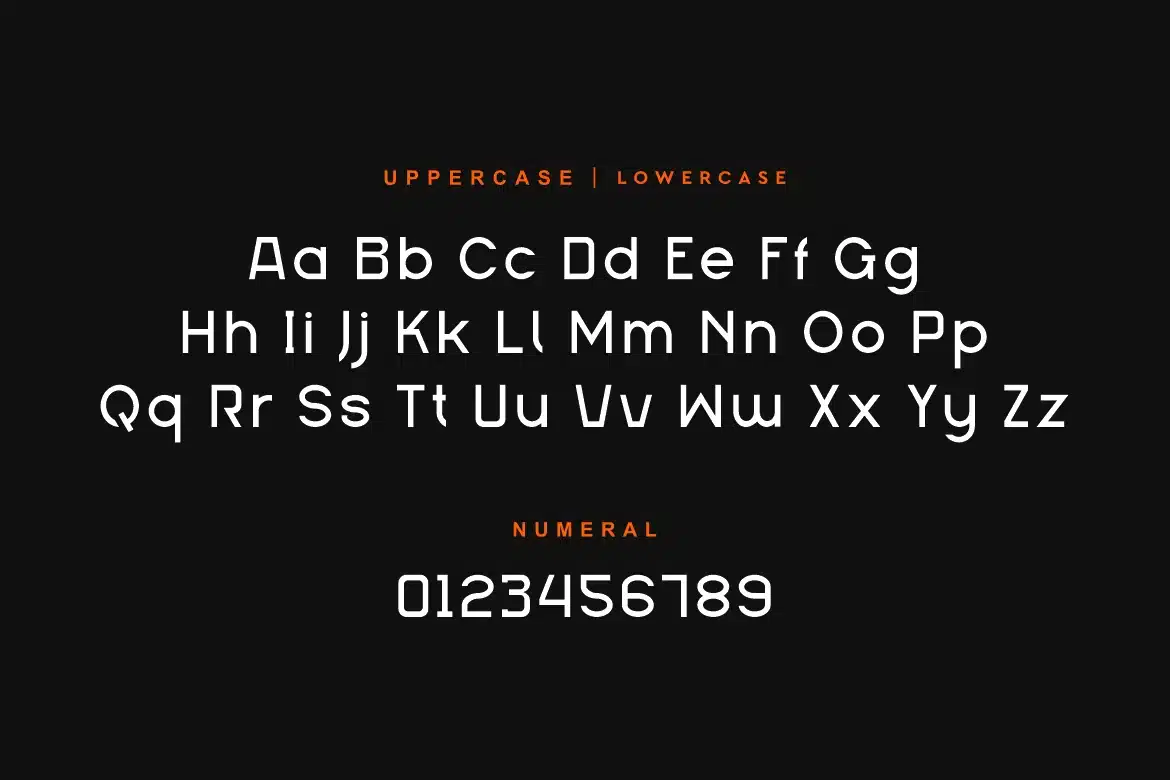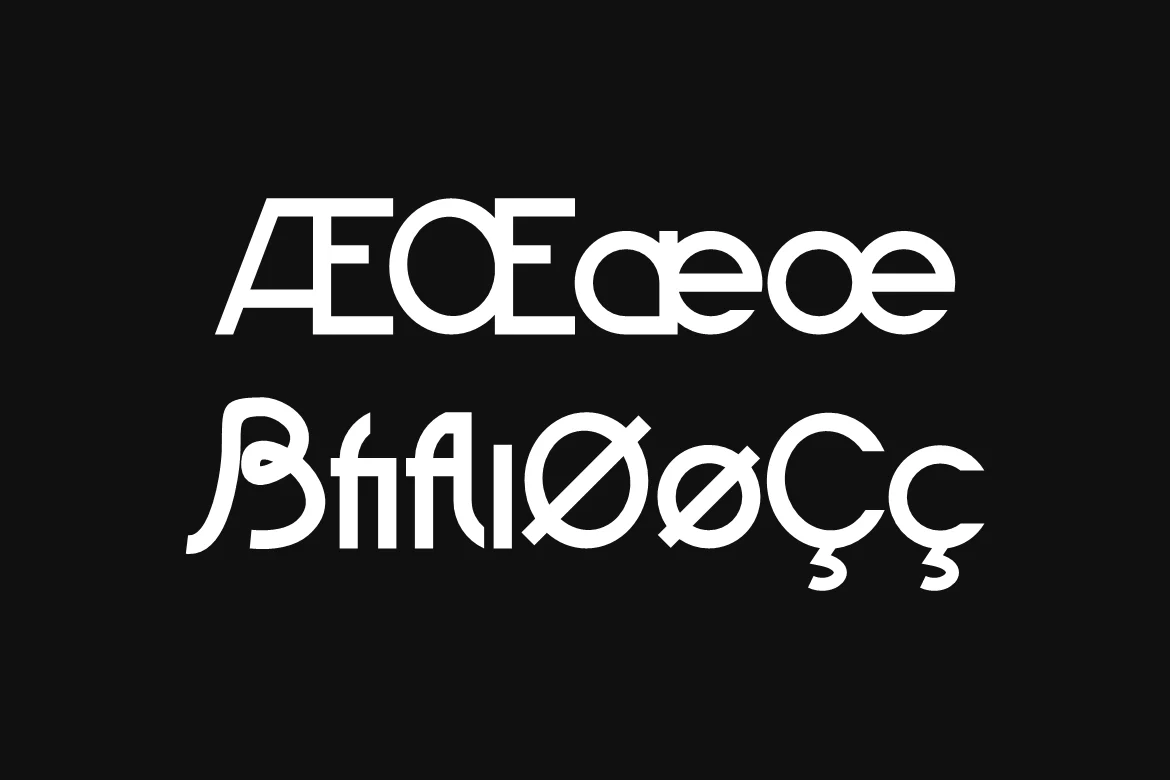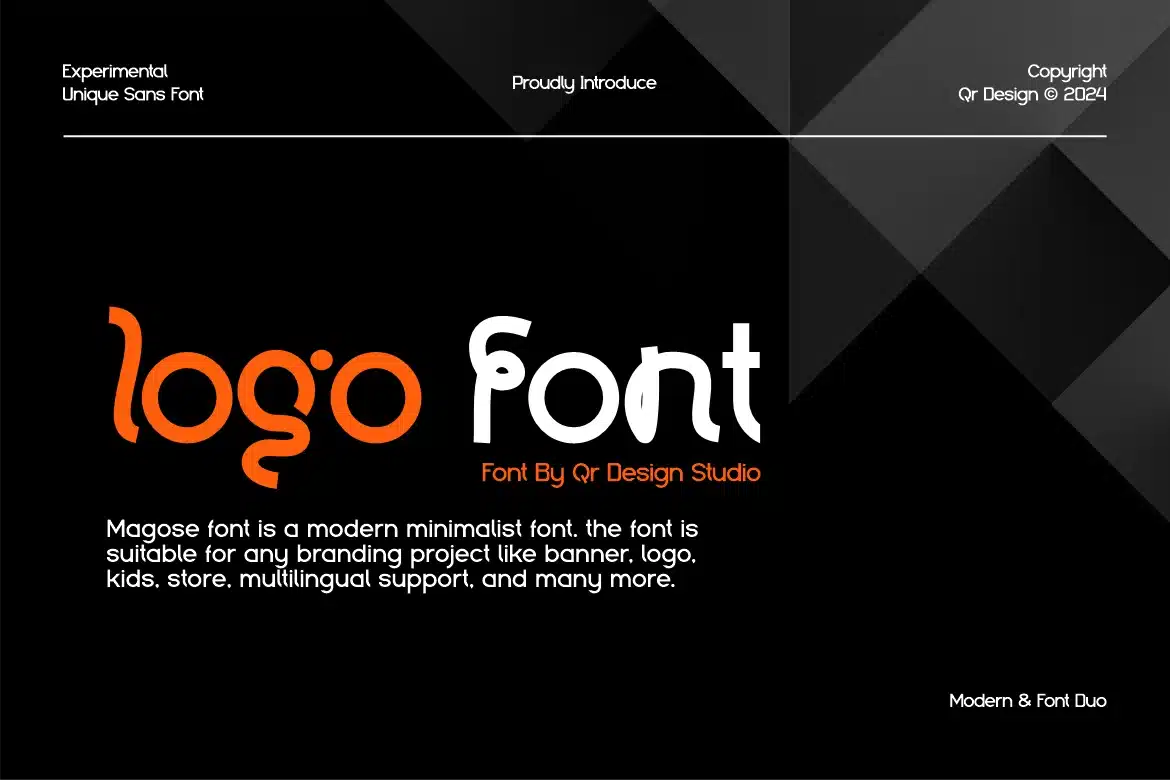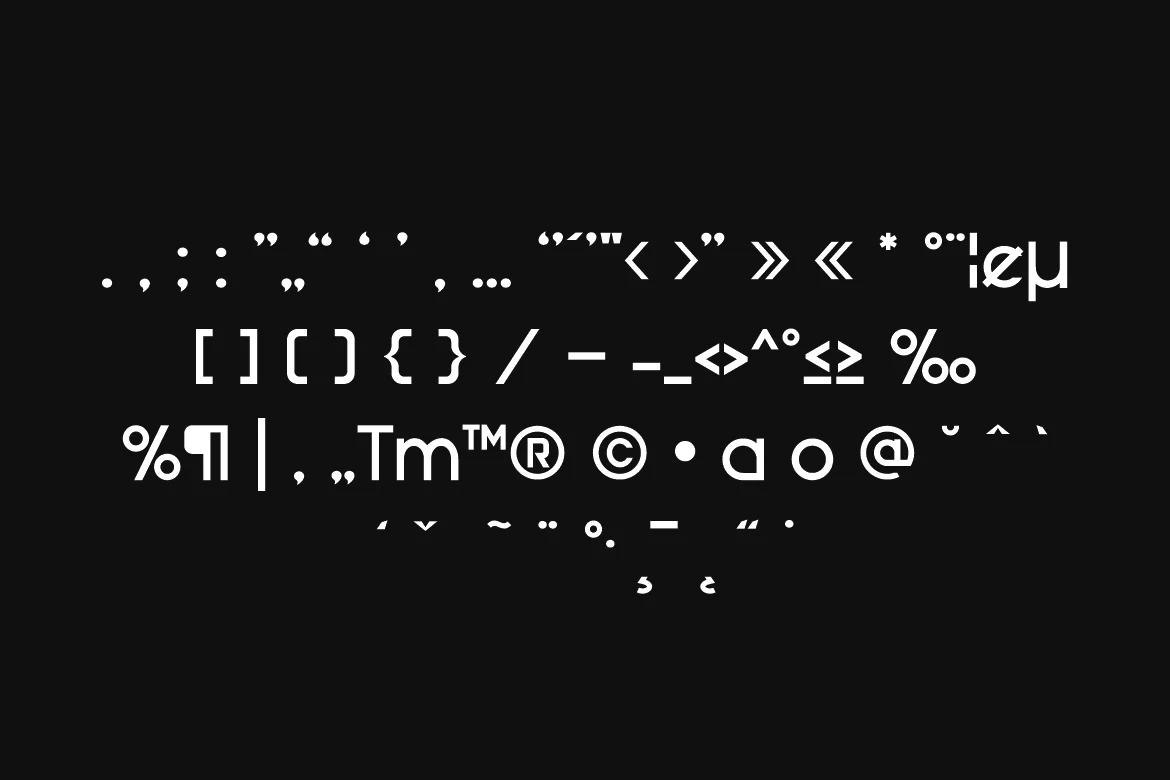
Magose – Experimental Unique Sans Font
Magose Font is a sans serif and minimal logo font.
The font is suitable for any branding project like stylish, poster, logo, sport, and many more.
Outstanding in a wide range of contexts.
Main Features
- Ligatures & Alternate
- Numeral & Punctuations
- Extended Character Set